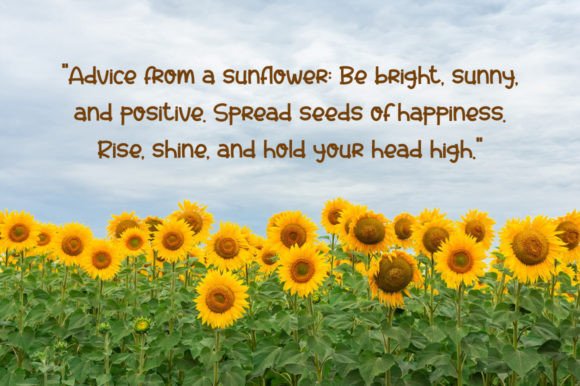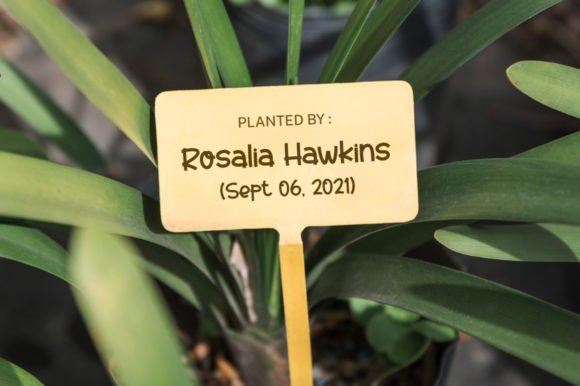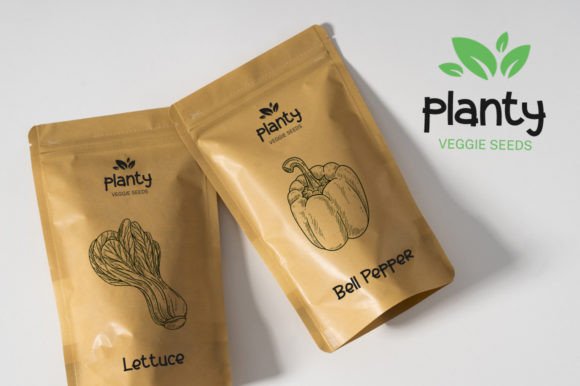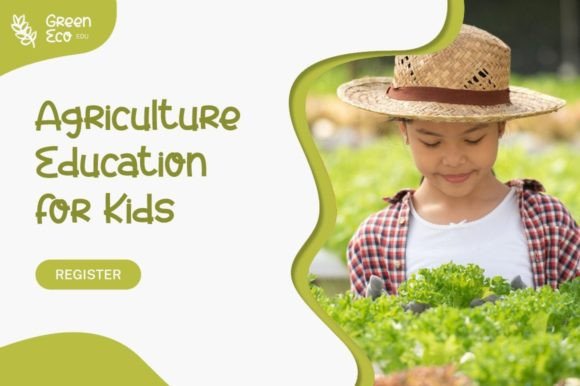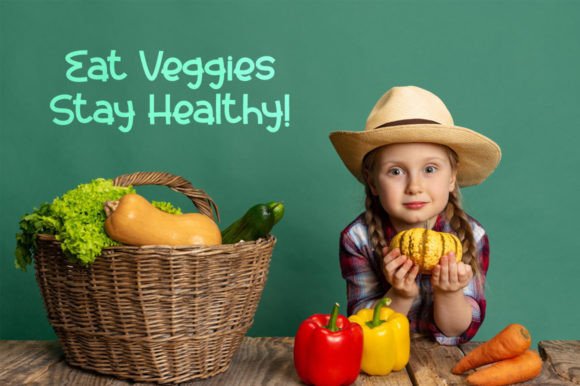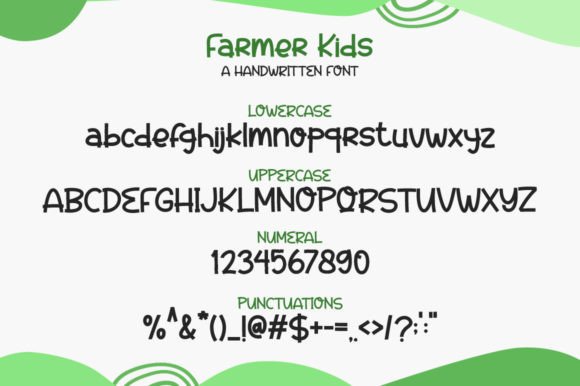
Introduction to Farmer Kids Font
Farmer Kids is a cute and simple-lettered handwritten font perfect for all the chalkboard quotes and teaching materials you wish to create.
Its authentic look will add a personal and realistic feel to your designs .